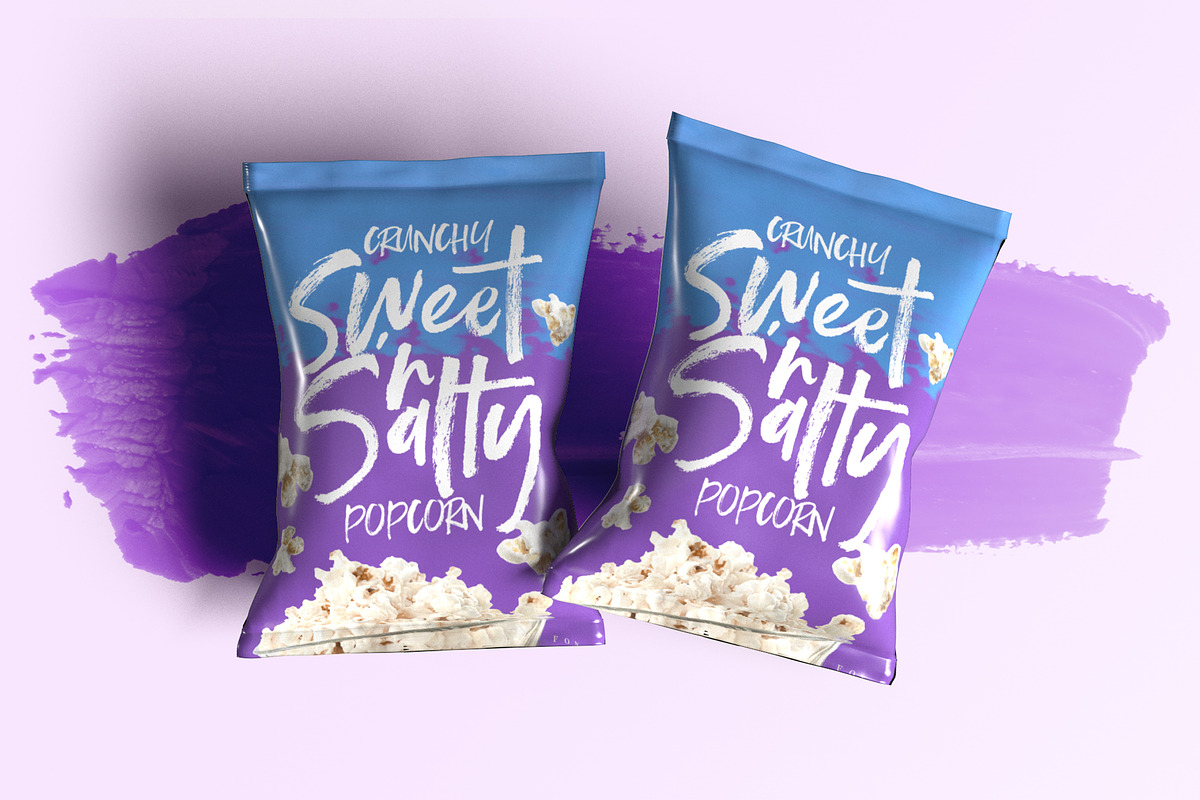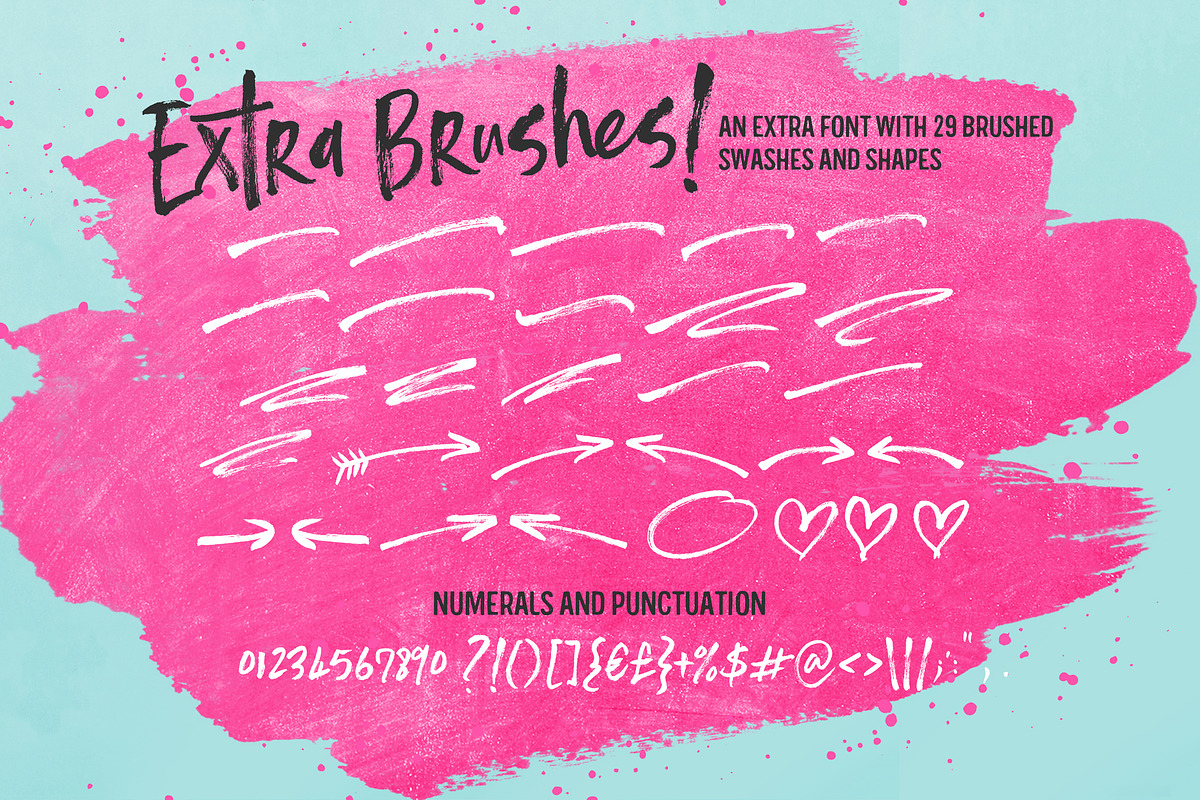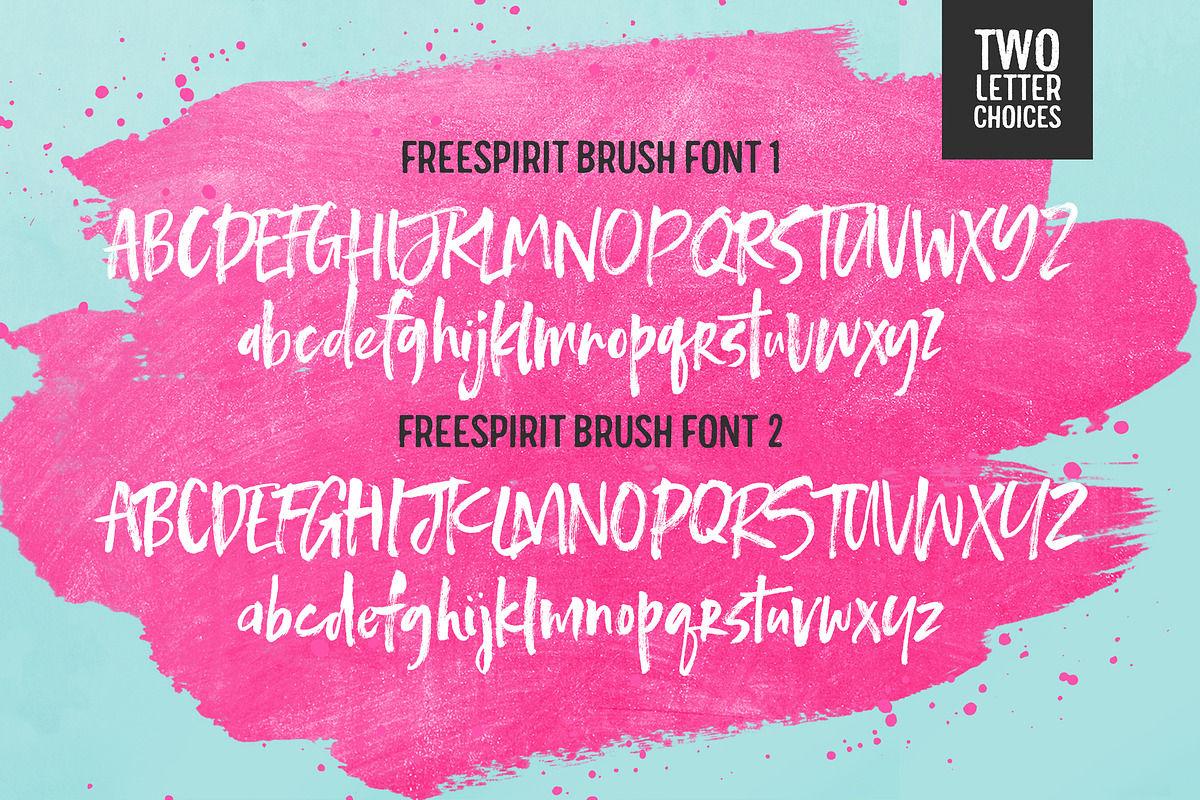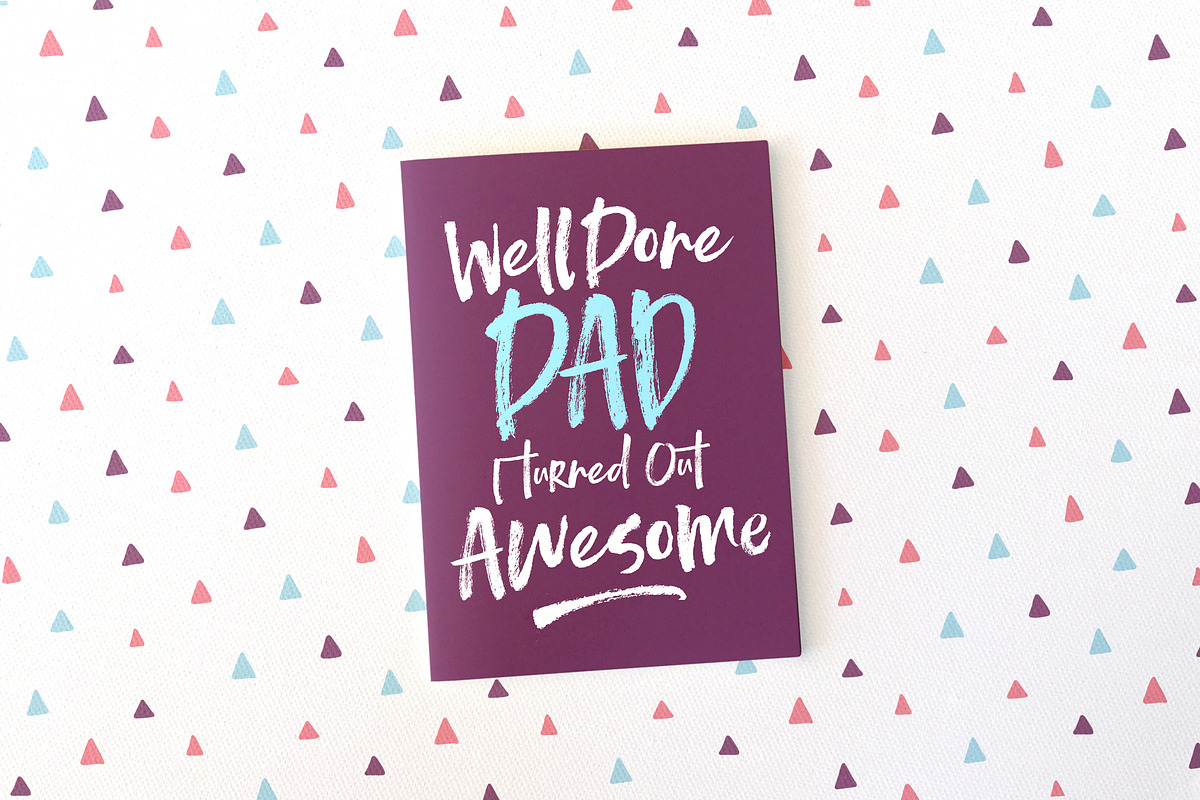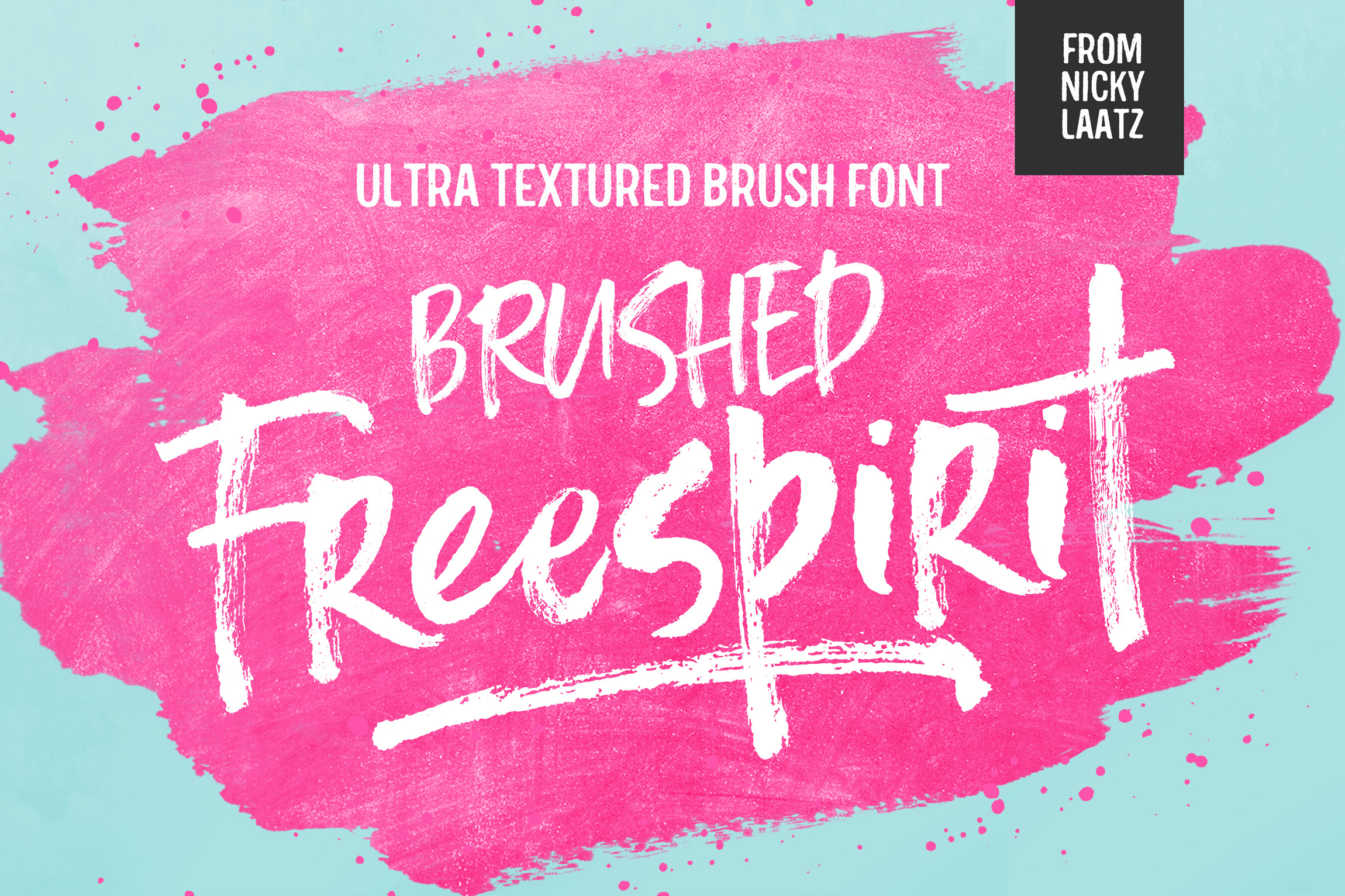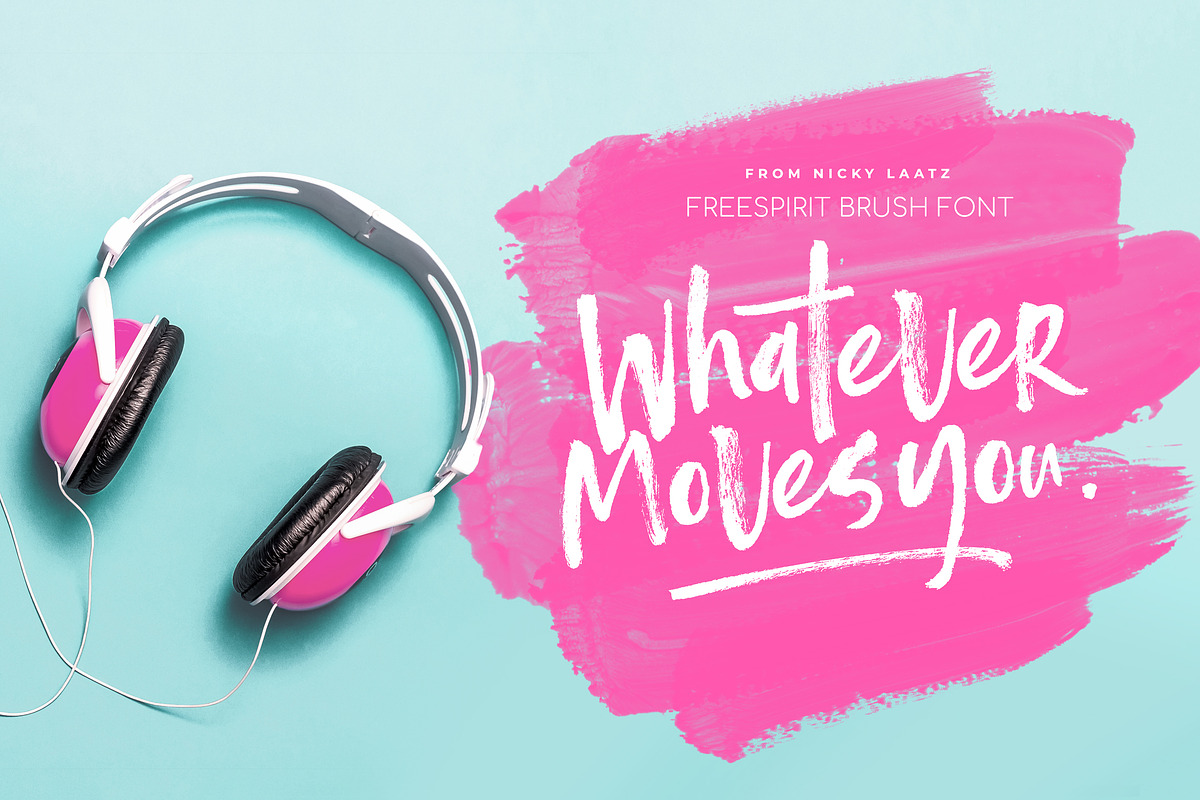
Freespirit Brush Fonts
Turn up the Punchy Fun Factor with 'Freespirit Brush Font'. With a highly detailed dry brush texture, and a messy baseline, this font is perfect for effortlessly making that outrageously bold statement in your design projects.
Freespirit Brush Font consists of two fonts - allowing you to interchange any letters and have flexibility in how you want your design to look.
To add even more punch, you get a Freespirit Brush Extras font, jam packed with matching swashes, and shapes to really give your design that custom made look.
Perfect for Branding, logos, packaging design,poster art, magazines, adverts, greetings and so much more - the list is really endless.
Go ahead and get LOUD, with Freespirit Brush Fonts :)